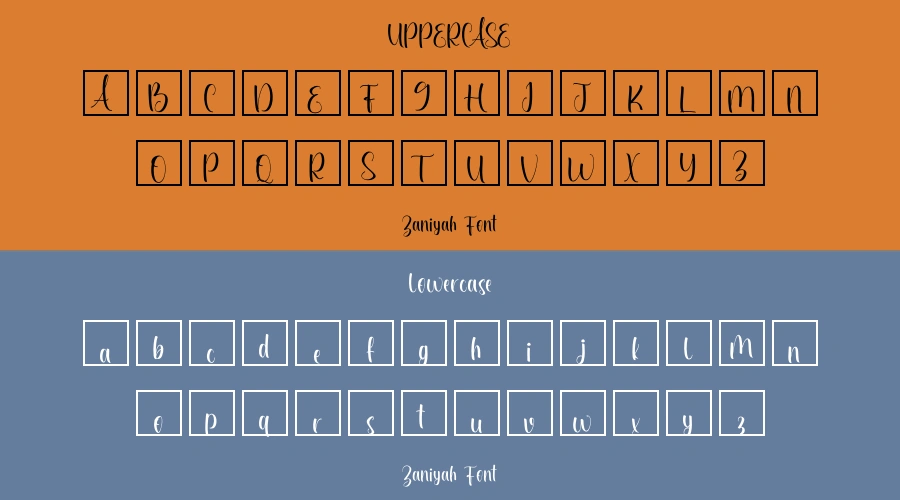
About Zaniyah Font
When typographic excellence matters most, Zaniyah Font delivers through its thoughtful blend of ornamental caps and craftsmanship. Specially crafted for literary works, it offers the precision and reliability required for sophisticated design work. Every detail serves a purpose.
The character set showcases thoughtful details like monoline strokes alongside functional mathematical symbols. This proves especially valuable in pull quotes, where overlay performance directly influences results. Particular attention was paid to x-height and standards alignment during development.